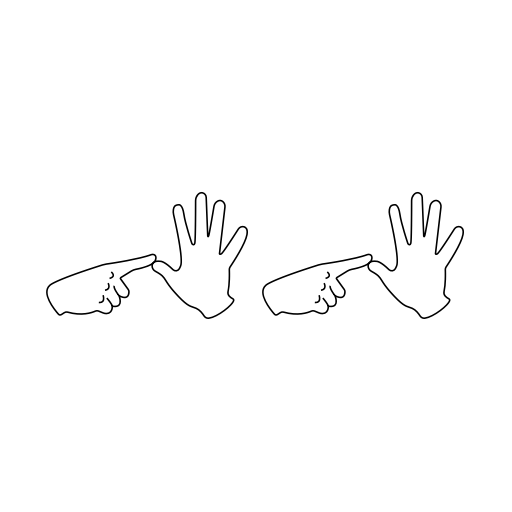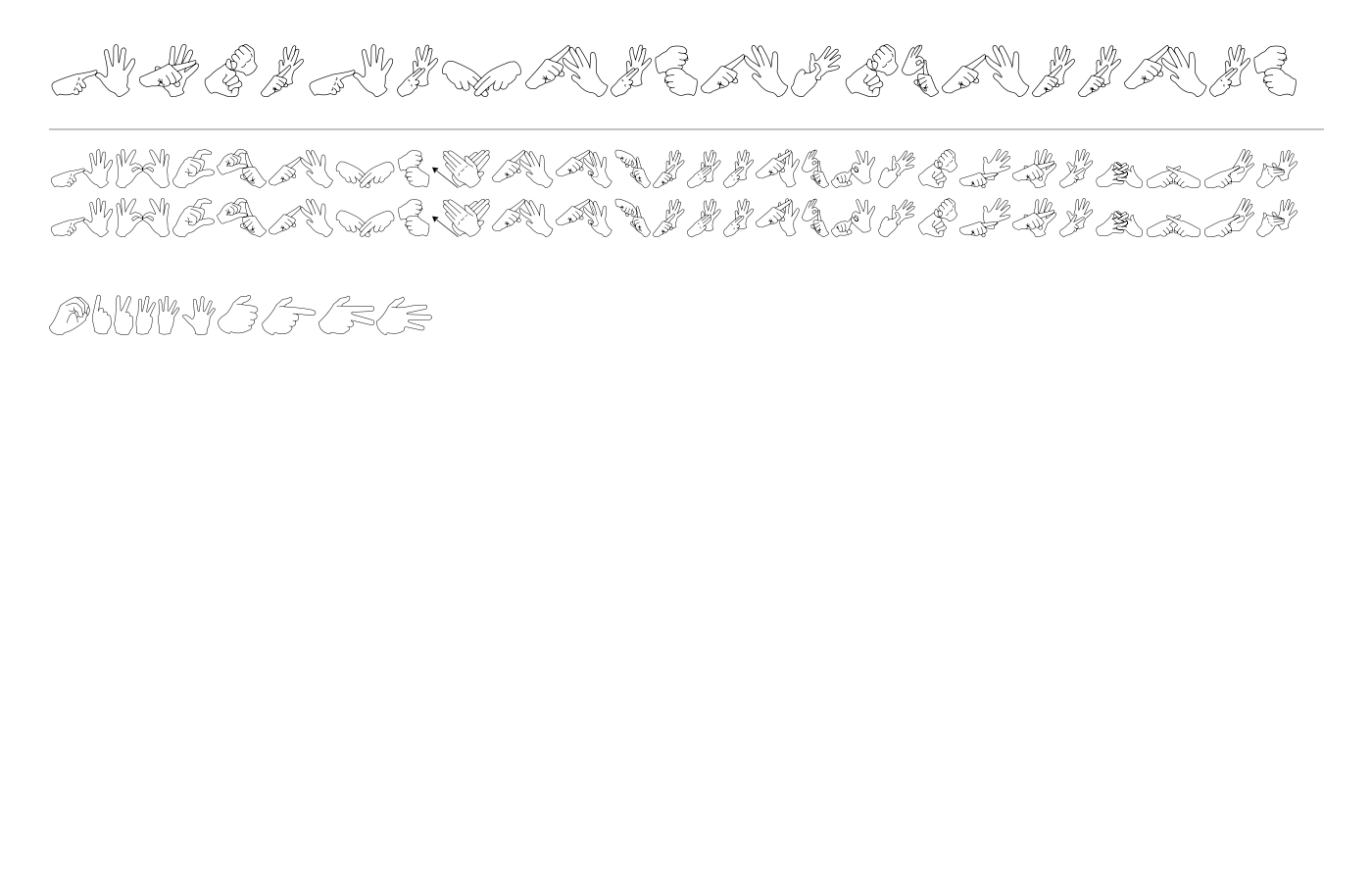
AuslanFingerSpelling is a unique, illustrative font that features hand-drawn line art of hands depicting the Australian Sign Language alphabet. Its delicate, outlined style gives it a light and approachable feel, making it ideal for educational and inclusive design projects. This font works best in contexts related to accessibility, learning resources, and community awareness where clear visual communication is key.
AuslanFingerSpelling Font
About AuslanFingerSpelling Font